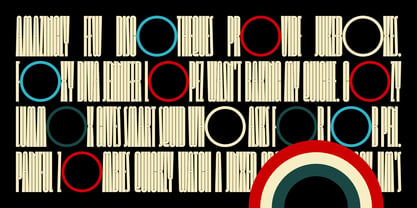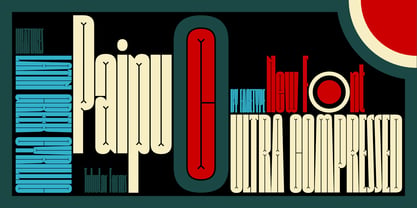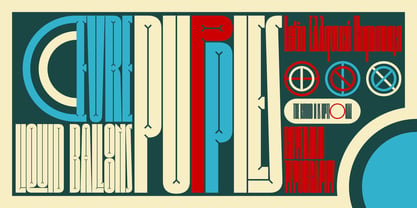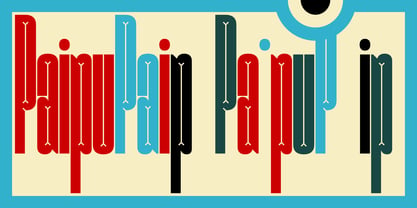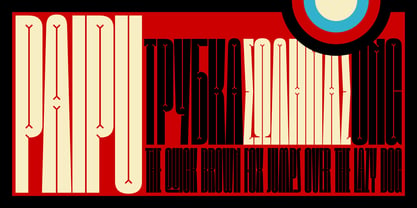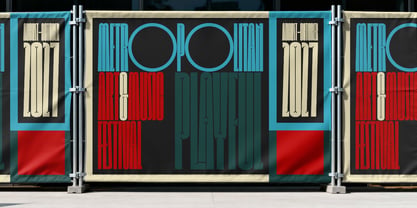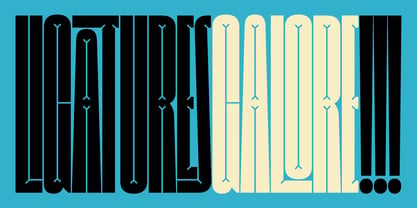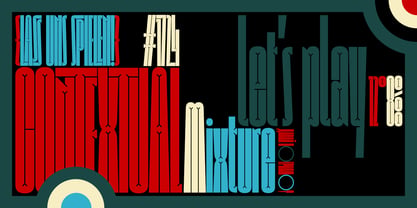
Paipu
by FaceType
The Paipu Font Family was designed by Marcus Sterz and published by FaceType. Paipu contains 1 styles. More about this family
Paipu is a playful, ultra-compressed single-style typeface designed to elevate your typography. Featuring a variety of optional ligatures and stylistic sets, it transforms letters like ‚O‘ and ‚Q‘ (along with similar characters) into perfect circles, imparting a unique and stylish appearance. With Paipu, you can effortlessly craft both elegant and whimsical typography. Additionally, this versatile typeface supports not only Latin script but also Cyrillic and Greek, making it ideal for diverse design projects, branding, web content, and editorial use.
Designers: Marcus Sterz
Foundry: FaceType